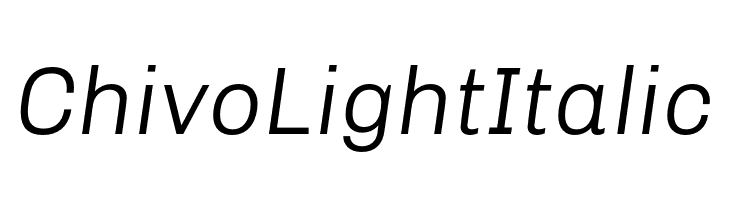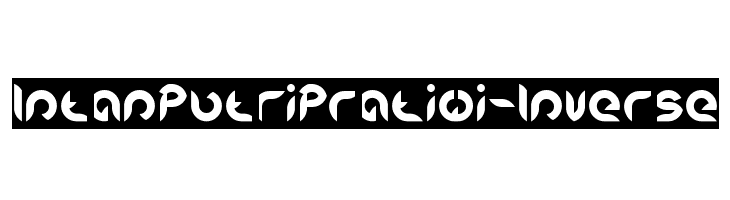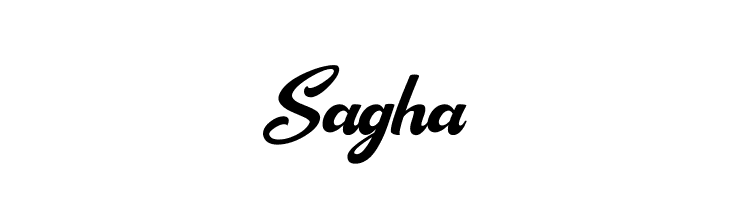
A modern, light, italic sans-serif font with sleek and elegant characteristics.
A futuristic, geometric font with smooth, rounded edges and consistent stroke width.
A decorative font with elegant swashes and artistic flourishes.
A bold, playful font with geometric shapes and unique cut-out details.
A bold, flowing script font with elegant, connected characters.
An elegant script font with flowing, interconnected letters and ornate flourishes.
A sleek, modern font with a geometric and minimalist design.
An italic outline font with classical Greek influences, offering a dynamic and elegant style.
A modern, extra-condensed semi-bold font with clean lines and efficient space usage.